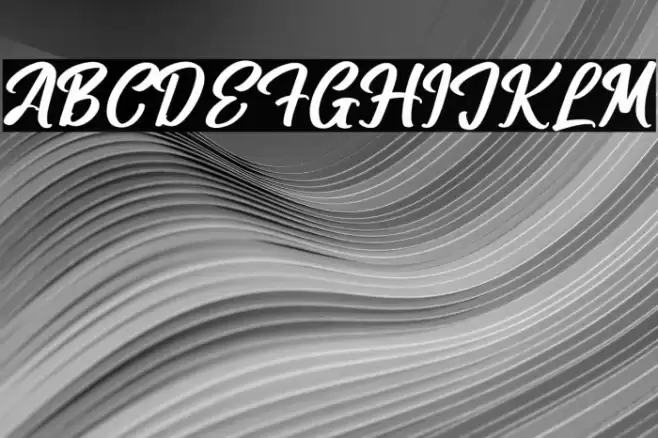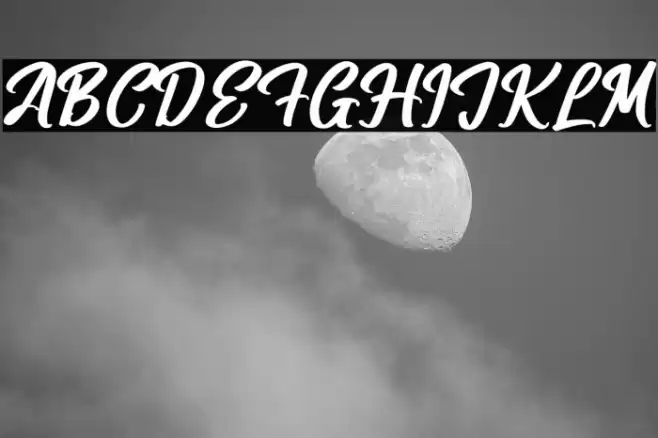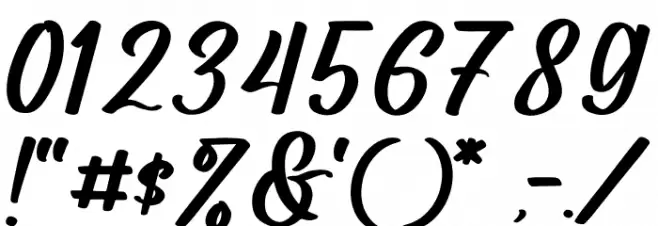
Andylante Jhondyle Font
Andylante Jhondyle Description
This font features a bold and expressive script style, characterized by its flowing, cursive letterforms. The uppercase letters exhibit a dynamic, sweeping motion with elegant curves, while the lowercase letters maintain a consistent rhythm and fluidity. The numbers and special characters complement the overall style with their bold presence and distinctive flair. The font's design is both modern and playful, making it suitable for a variety of creative applications. Its strong visual impact is achieved through thick strokes and a high contrast between thick and thin lines, enhancing its readability and aesthetic appeal.
A bold, expressive script font with flowing, cursive letterforms and high contrast from Uncategorized fonts.
- Proposed Projects: Ideal for branding, invitations, greeting cards, and creative headlines.
- Use Case: Logos, Headlines, Invitations